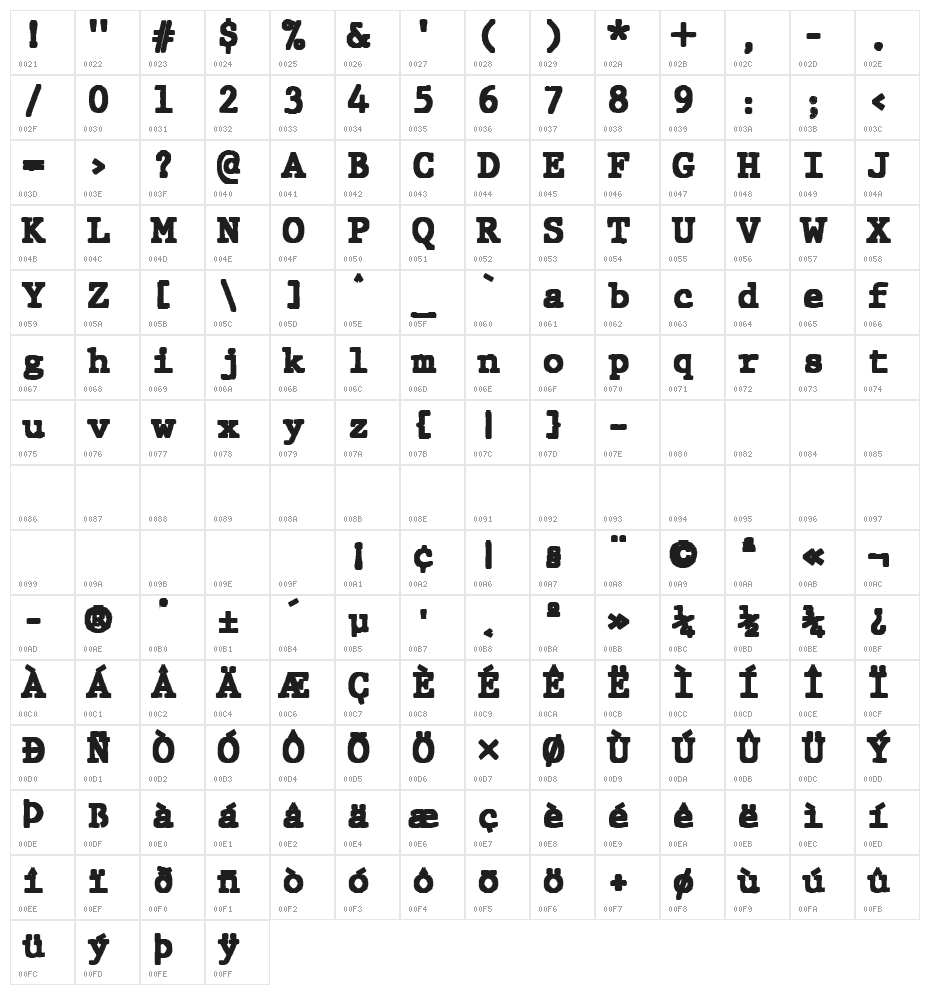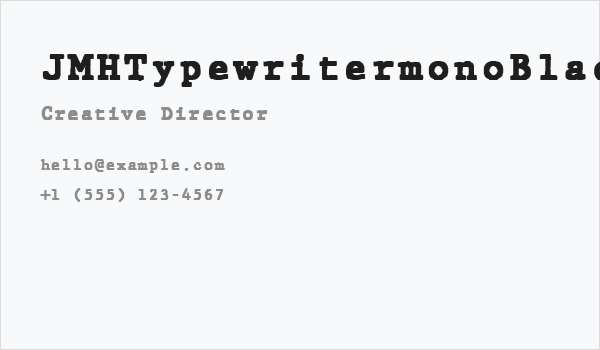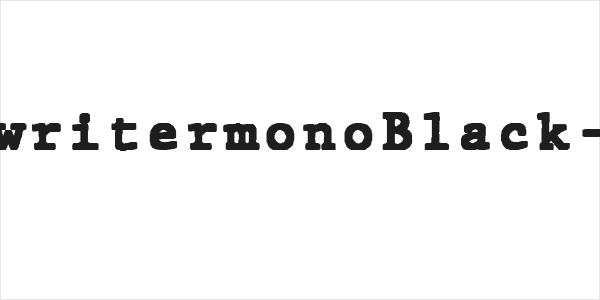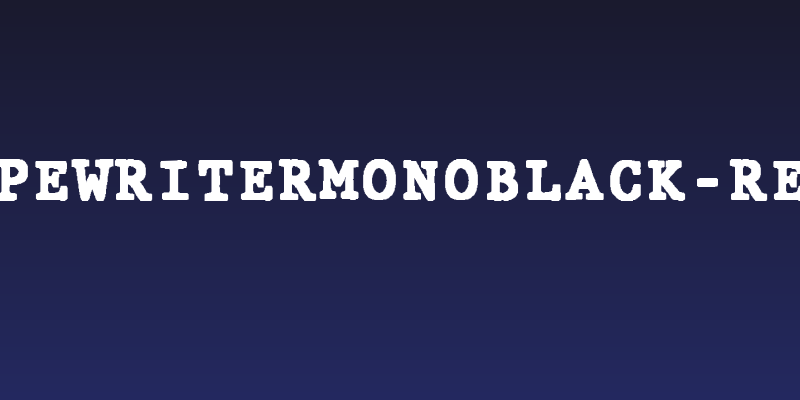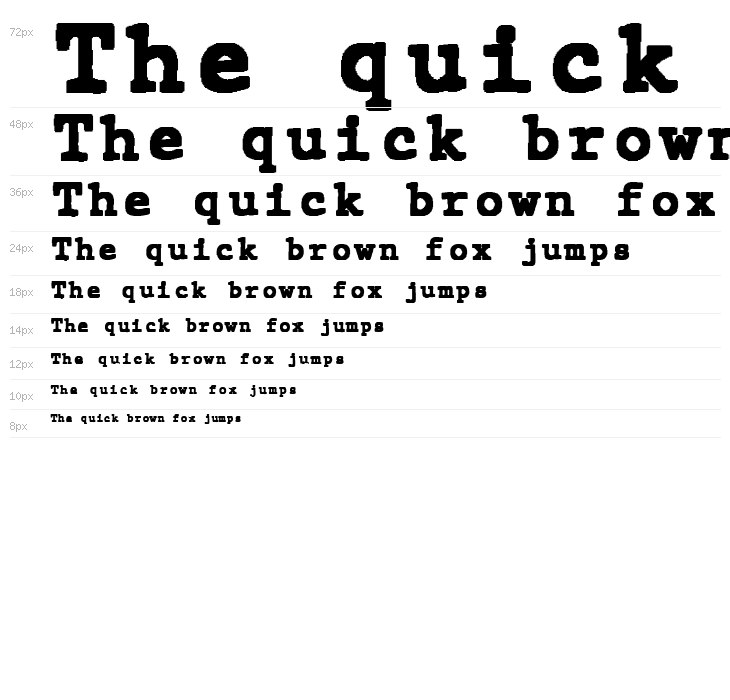
JMHTypewritermonoBlack-Regular Font
JMHTypewritermonoBlack-Regular Description
This typeface exudes a classic typewriter aesthetic, characterized by its monospaced design where each character occupies the same amount of horizontal space. The letters are bold and slightly rounded, giving them a robust and vintage feel. The uppercase and lowercase letters maintain a consistent style, with clear distinctions between each character, enhancing readability. The numerals and special characters follow the same monospaced pattern, ensuring uniformity across all text. This font is reminiscent of old-school typewriters, making it ideal for projects that require a retro or mechanical touch.
| Proposed Projects | Ideal for retro-themed designs, typewriter simulations, coding displays, and any project requiring a mechanical or vintage aesthetic. |